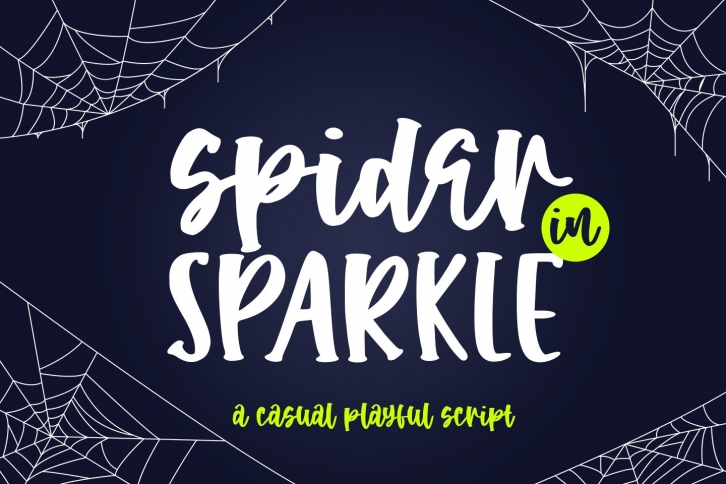
Spider in Sparkle is a great font that was designed by Abo Daniel Studio. Imagine the amount of combinations you can create using this font! The archive is 3.81 MB and it was released on September 8, 2021. Spider in Sparkle looks beautiful on wedding invitations, greeting cards, logos, posters, labels, t-shirt designs, logos, business cards and is perfect for use in ink or watercolor works, fashion, magazines, packaging and food menus, children's books and more!